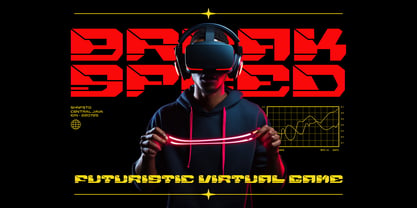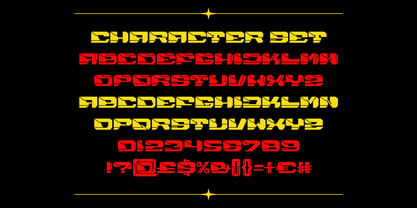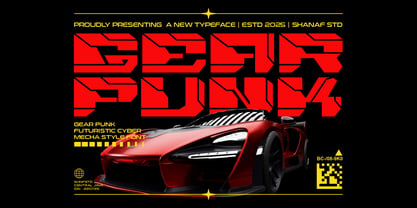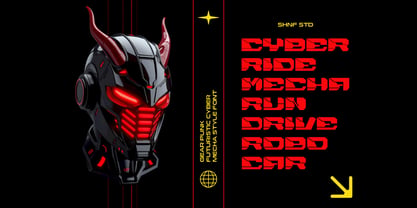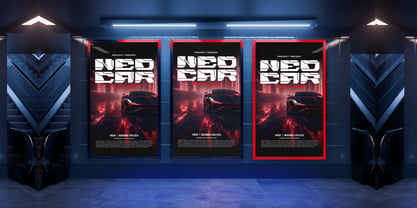
Gearpunk
by Shanaf
The Gearpunk Font Family was designed by Yesie Erma Yunita and published by Shanaf. Gearpunk contains 1 styles. More about this family
Gearpunk Futuristic Cyberpunk Mecha Font is designed with bold geometric cuts, sharp edges, and layered angles that capture the essence of cyberpunk and sci-fi aesthetics. Each character feels mechanical and industrial, resembling robotic armor or high-tech machinery, making the font visually powerful and futuristic. Its blocky proportions are enhanced with diagonal slashes and cutouts, giving it a unique mecha-inspired look that feels both digital and mechanical. The striking use of filled and negative spaces adds rhythm and depth, making the font ideal for designs that demand attention.
Perfect for branding, gaming titles, posters, logos, film covers, or packaging, Gearpunk delivers a strong sense of motion and energy. Its futuristic appeal works flawlessly in digital projects, tech events, cyber-inspired artwork, and modern sci-fi promotions. Whether placed on large-scale banners, metallic product packaging, or glowing virtual interfaces, this font creates an immersive and memorable presence. Designers aiming for bold cyber visuals will find Gearpunk to be a versatile tool that connects technology, speed, and futuristic imagination in one typeface.
Designers: Yesie Erma Yunita
Foundry: Shanaf